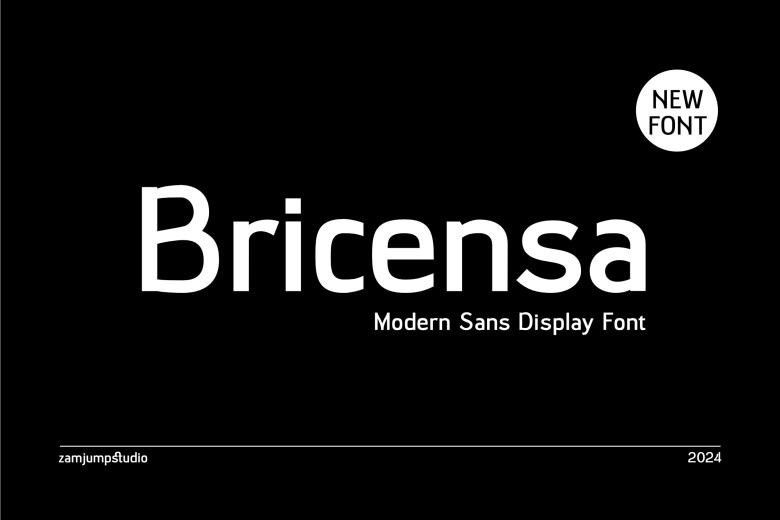
Bricensa Font
Bricensa is a Modern Sans Serif Display Font, Take your overall design projects to a new level with the Bricensa modern sans serif display font. As the most modern and elegant of all car models, Bricensa can boast of perfect combination of strict lines and curves. It is effective in both electronic and print media, and that is why Shelley Bulletin can be used in branding, headlines, posters, and editorial design.
For headings or logos of your projects, Bricensa is the best addition which will help you draw the attention of audiences. Discover the tactile appeal of Bricensa: the perfect choice for any project where you want to create a powerful and modern look.
Bricensa Sans Serif Font